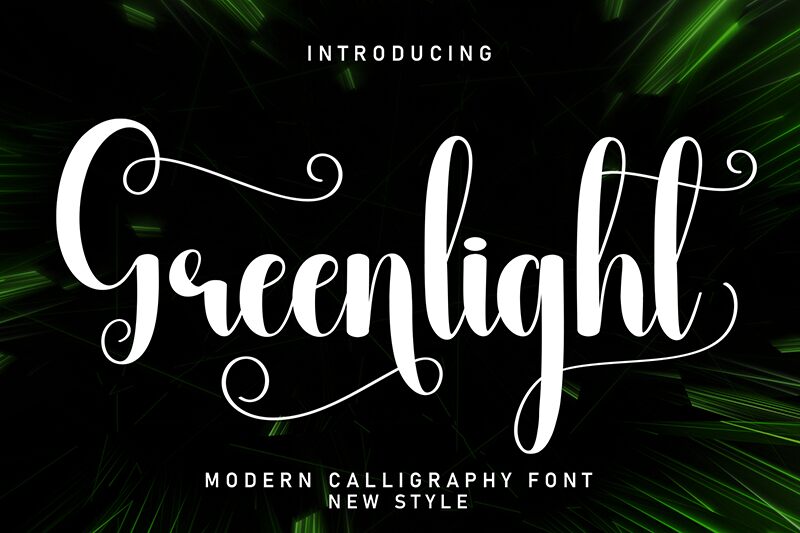
Greenlight
Greenlight font, crafted by Andi Moz, is a beautiful calligraphy typeface with elegant condensed letters. Decorative and expressive, it combines graceful curves with unusual cut-offs within flowing interconnected characters. Its careful balance integrates bulky and thin strokes for unique and stylish paragraphs both in short or long sentences.